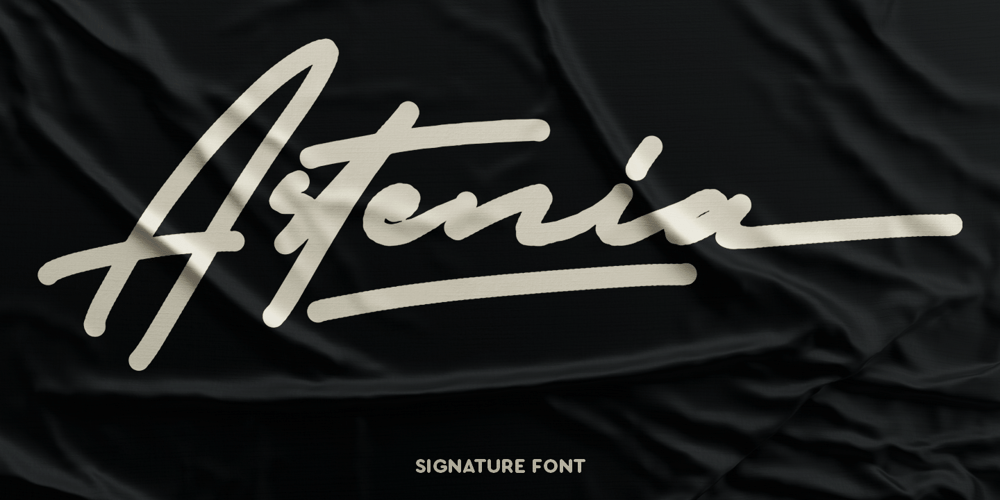
Astenia Font Family was designed by Wisnu Cipto Wibowo and published by Fateh.Lab. Astenia contains 2 styles and family package options. Astenia is a modern script that is designed in detail, made with original hand pulls, the perfect font to meet needs such as photography, signatures, branding, logos, and more. Very beautiful and classy, simple but strong.